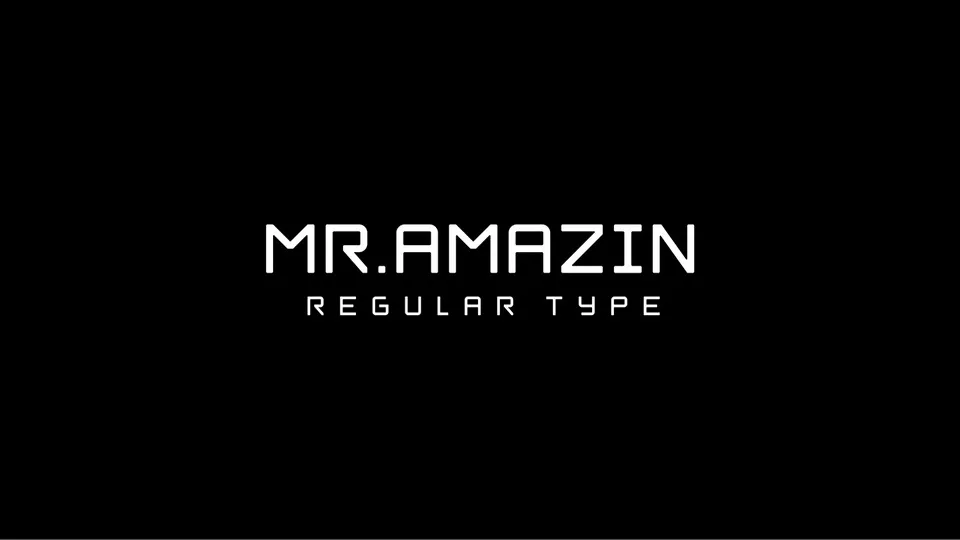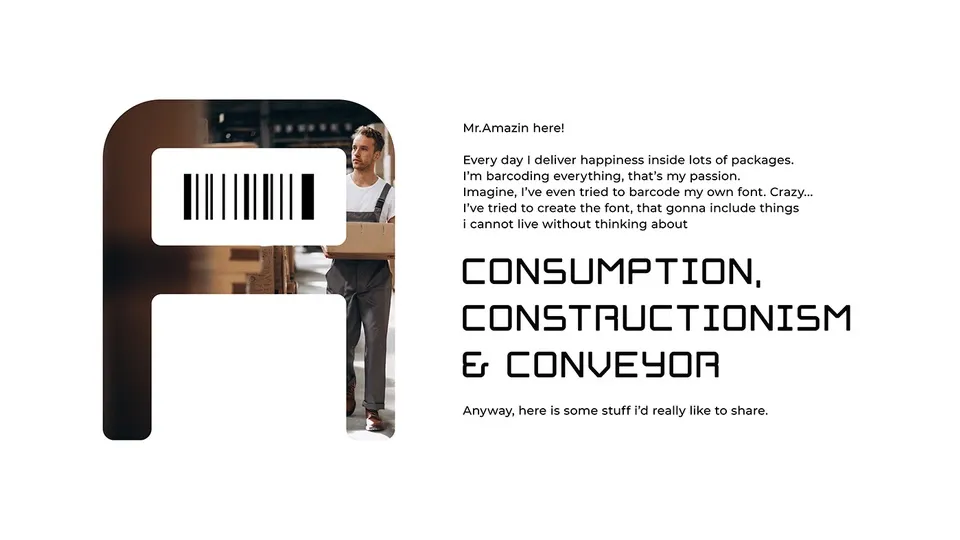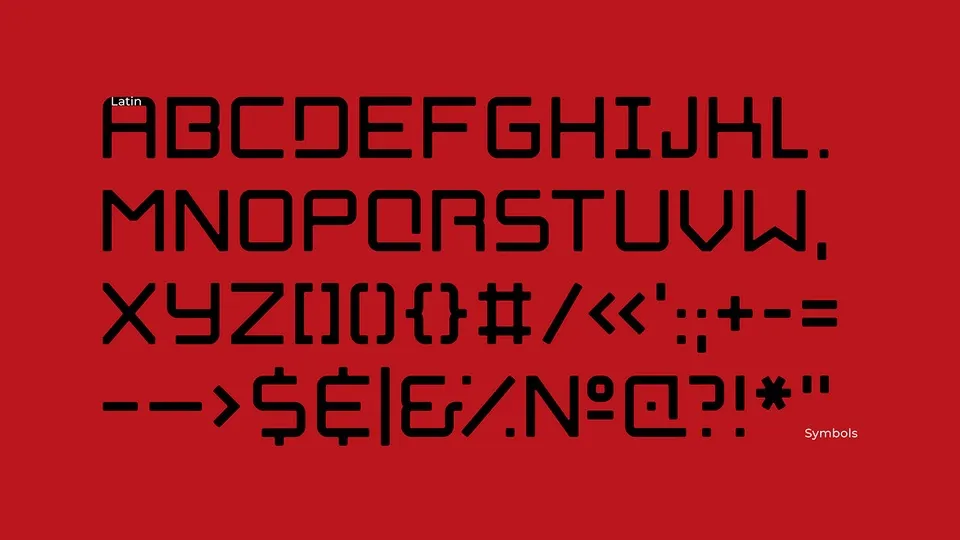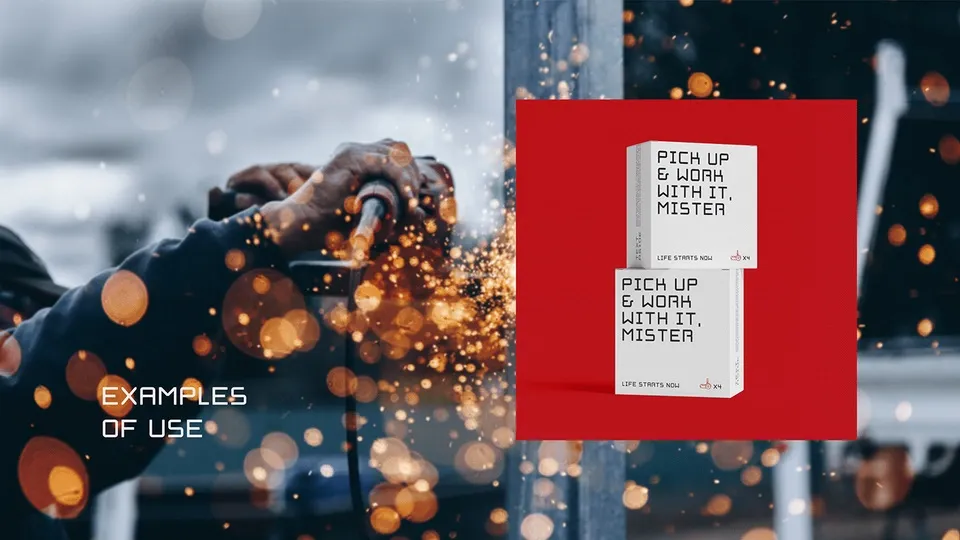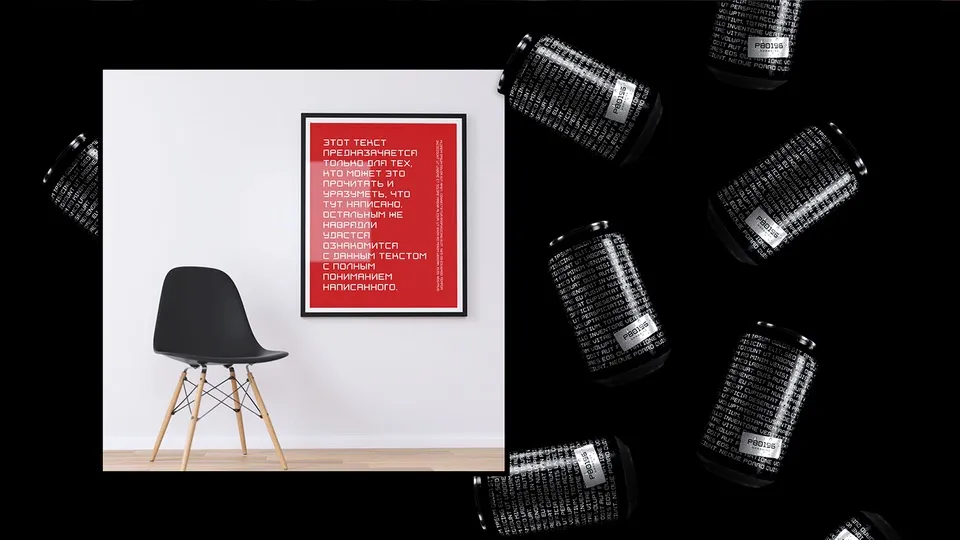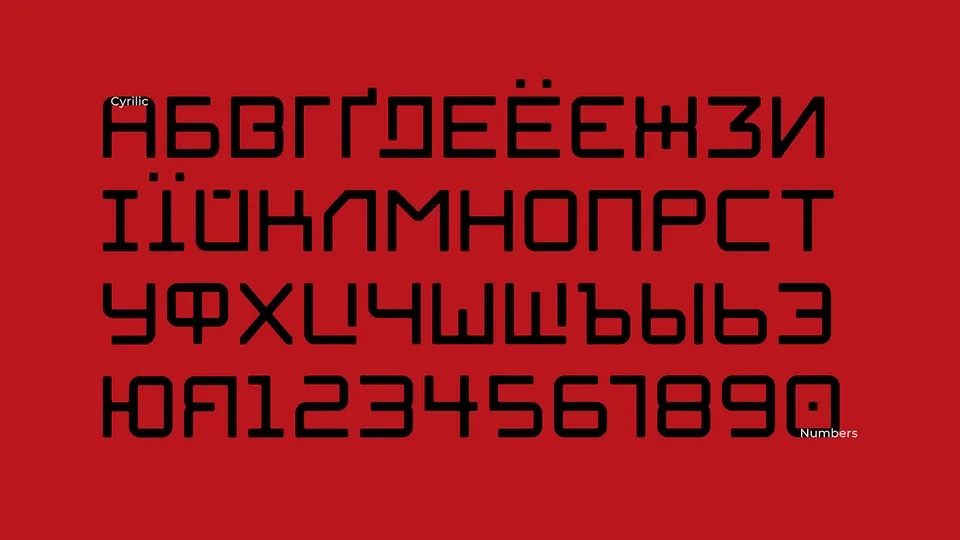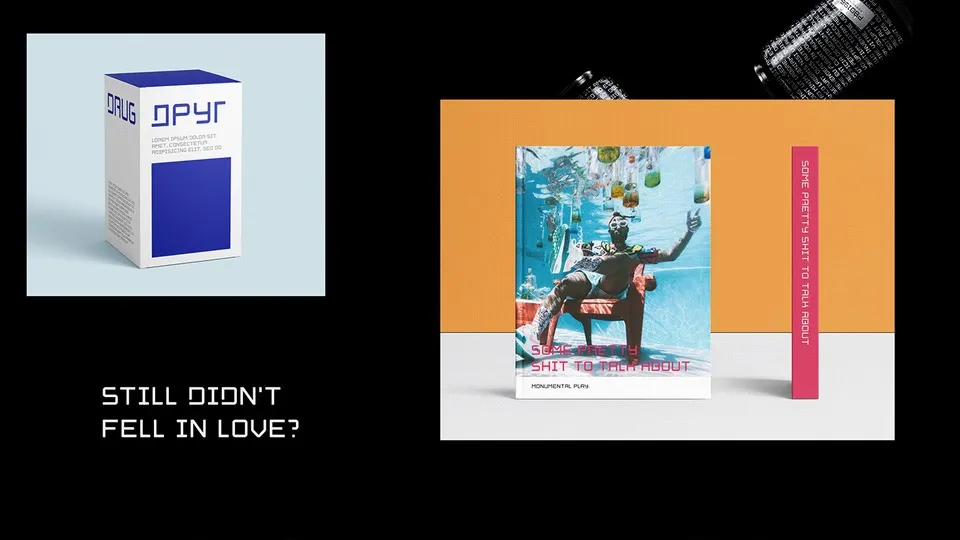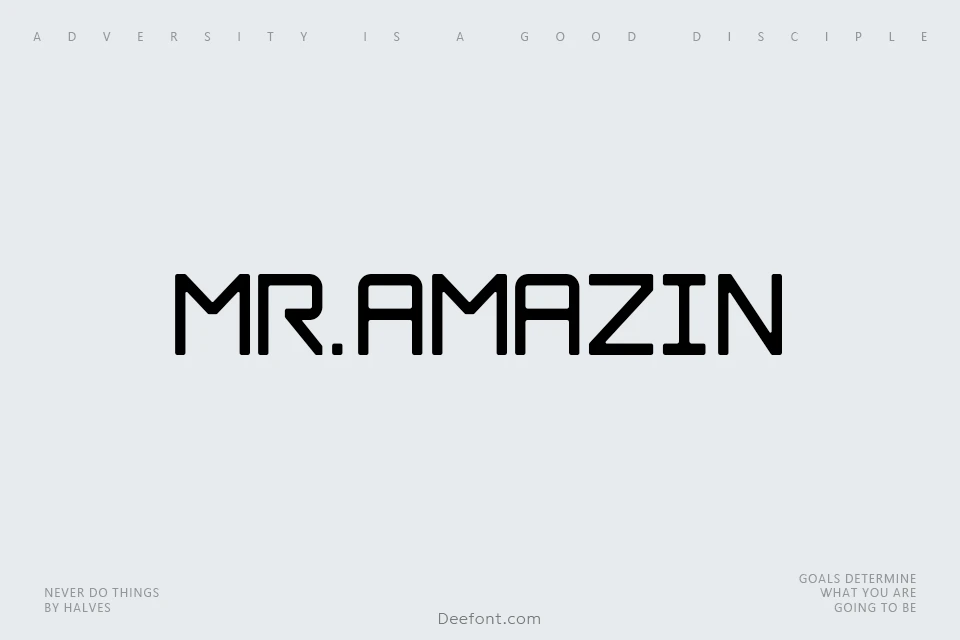
Mr.Amazin Font
Mr.Amazin Display Font is a modern geometric sans serif display typeface with a strong personality. Featuring all caps letters, numbers, and symbols, it supports both Latin and Cyrillic scripts. Its condensed form is inspired by vintage branding and painted signage, making it perfect for logos, promotional content, and marketing graphics that require a confident and sophisticated look.